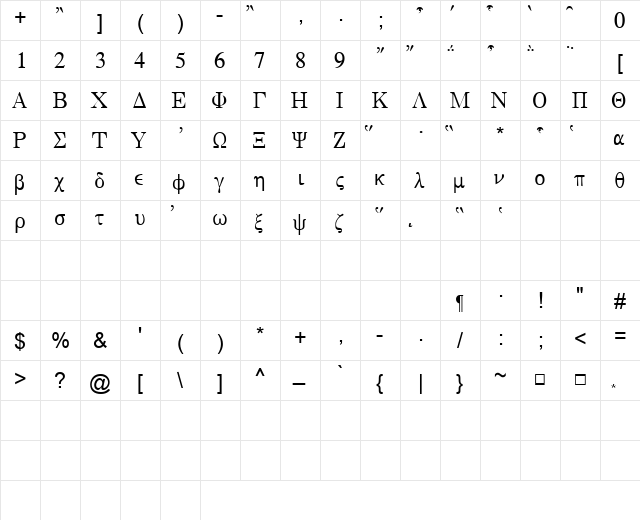
Bwgrkl Regular
Design Context for Bwgrkl Typeface
Bwgrkl is a composed and adaptable typeface that performs quietly and consistently across a wide range of design contexts.